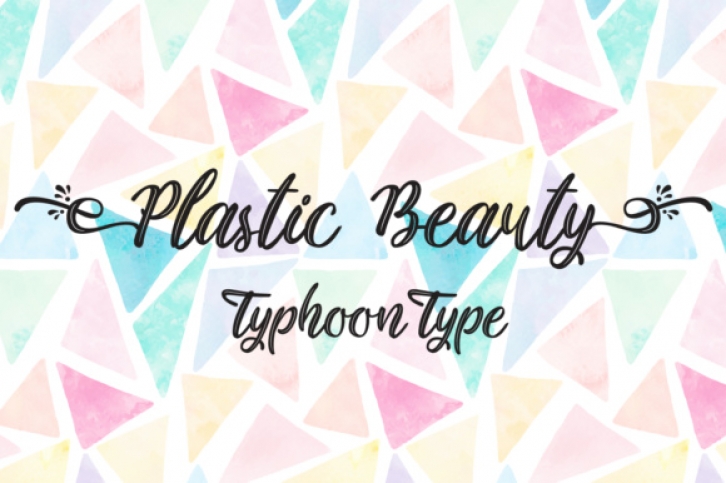
Plastic Beauty is a stunning display font, ideal for a wide range of projects! This font has an inline look to it, and can add some texture and intrigue to your type-based work.